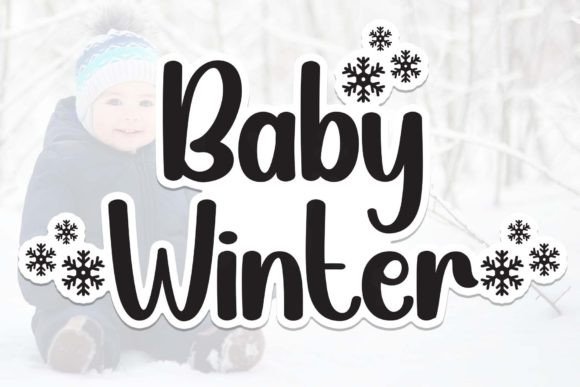
Introducing Baby Winter Font, your ultimate companion in adding a touch of sweetness and charm to your creative projects! This delightful handwritten font, crafted by the talented William Jhordy, is here to bring your designs to life with its endearing character and versatility.
With Baby Winter Font, you have the perfect tool to create enchanting wedding invitations that will leave a lasting impression on your guests. Its gentle curves and playful strokes exude a sense of joy and love, making it the ideal choice for capturing the essence of your special day.
But the magic of Baby Winter Font doesn't stop there! This font is also your go-to solution for crafting captivating greeting cards that will warm the hearts of your loved ones. Let your words dance on the page with its whimsical style, making every heartfelt message a true work of art.
Whether you're a professional designer or a DIY enthusiast, Baby Winter Font is designed to cater to all your creative needs. Its versatility shines through as it effortlessly complements various design projects, from logos and branding to social media graphics and beyond.
Embrace the endless possibilities that Baby Winter Font offers and let your imagination run wild. Its unique personality and captivating charm will elevate your creations, ensuring that they stand out from the crowd.